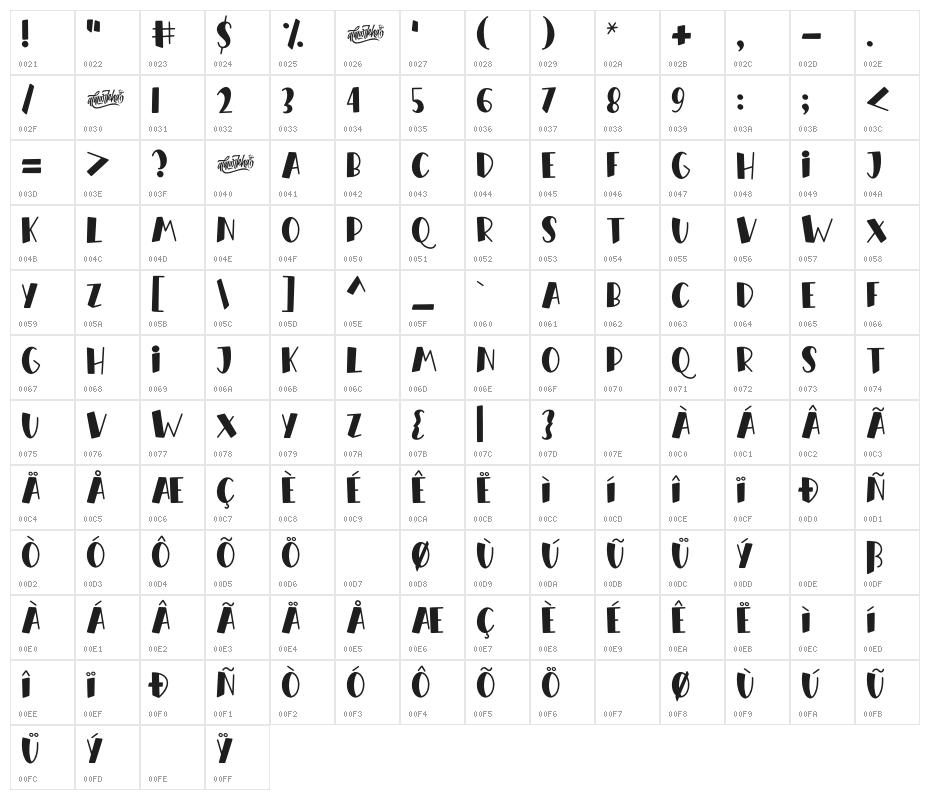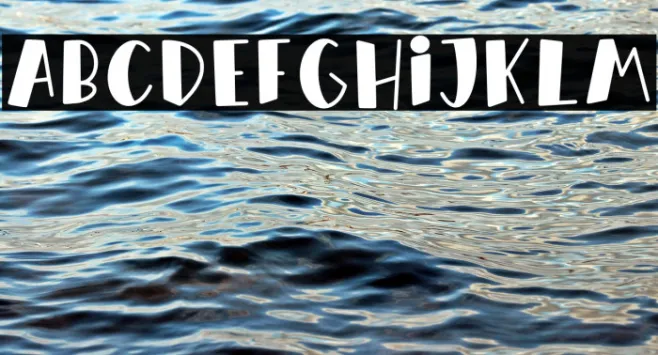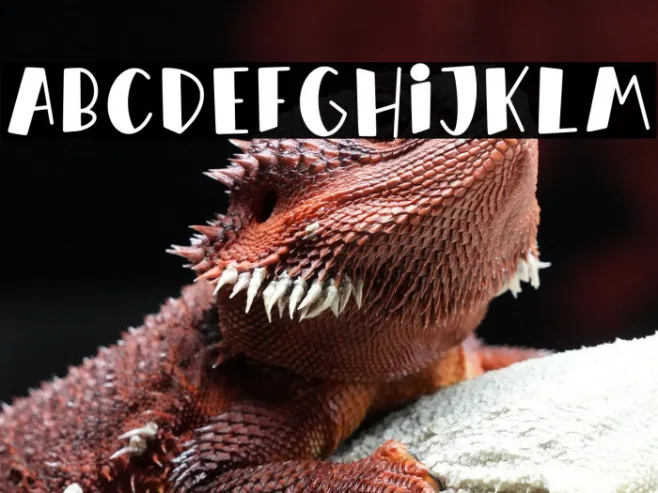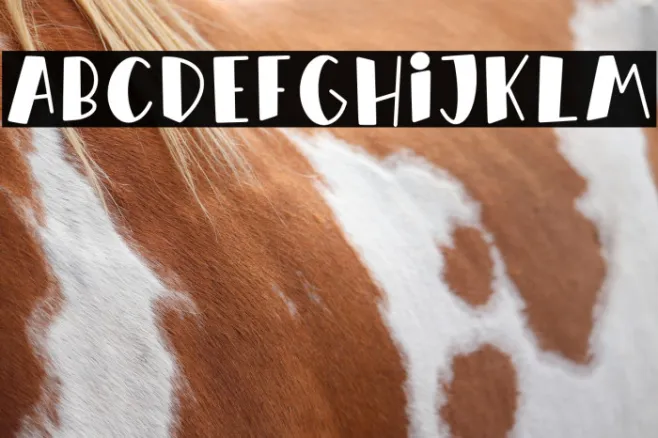
Orange Milk Font
Orange Milk Description
This font features a playful and bold design with a hand-drawn aesthetic. The characters are irregular and slightly tilted, giving them a dynamic and energetic appearance. The uppercase and lowercase letters maintain a consistent style, with some letters having unique flourishes that add to the whimsical feel. The numbers are equally bold and maintain the same playful style. Special characters are included, matching the overall aesthetic. This font is perfect for projects that require a fun and informal touch.
| Overall Style | Playful, Hand-drawn, Energetic |
| Use Case | Headlines, Posters, Creative Branding |
| Proposed Projects | Ideal for children's books, playful branding, posters, and creative invitations. |